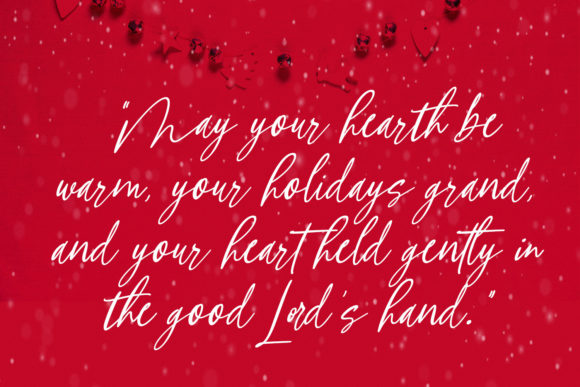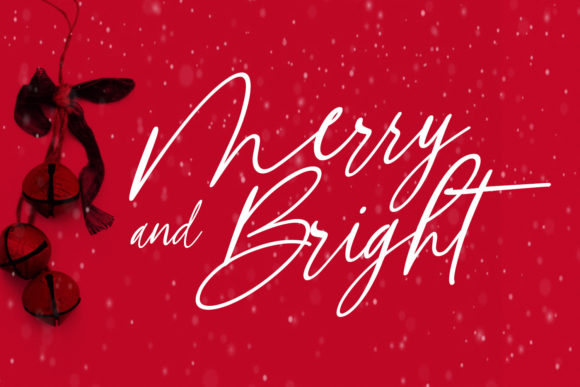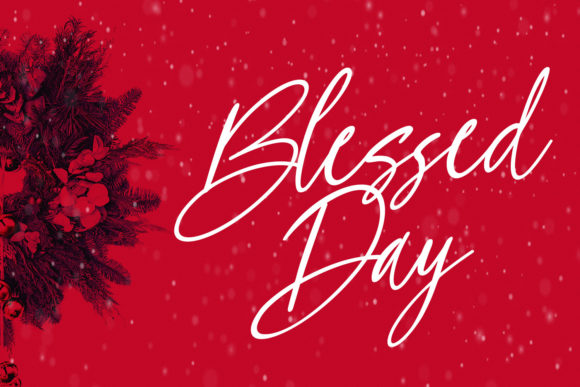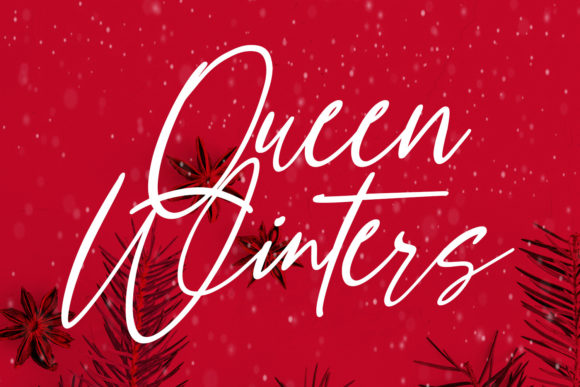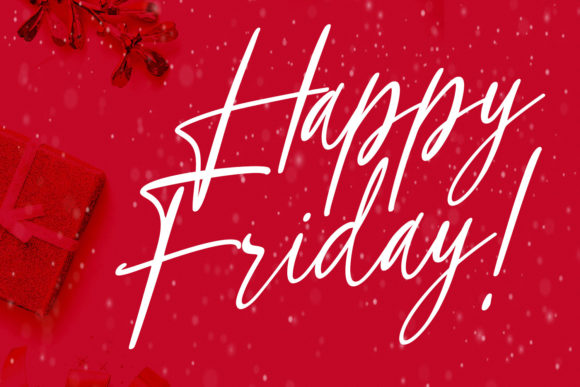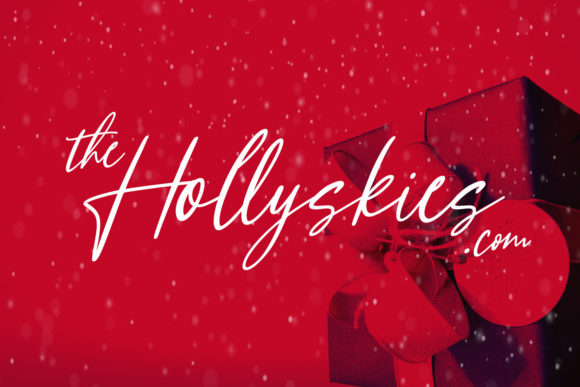
Introducing Another Christmas Script Font: A Festive Addition to Your Design Collection
Are you tired of using the same old fonts for your holiday designs? Look no further! Another Christmas script font is here to bring a touch of festive flair to your creations. This annual Christmas script font boasts a unique slanted style, clean mono-line stroke, fun character, and a dash of ligatures, making it perfect for a variety of design projects.
What Makes Another Christmas Script Font Special?
Another Christmas script font is designed to add a playful and cheerful vibe to your designs. Its slanted style gives it a dynamic and energetic feel, while the clean mono-line stroke ensures that your text remains clear and easy to read. The fun character and ligatures add a whimsical touch, making it ideal for creating eye-catching designs that capture the spirit of the holiday season.
Uses for Another Christmas Script Font
This versatile font can be used for a wide range of design projects, including:
- Logo Design: Create a memorable and festive logo for your business or brand with Another Christmas script font.
- Social Media: Add a touch of holiday cheer to your social media posts and stories with this fun and playful font.
- Movie Titles: Use Another Christmas script font to create eye-catching movie titles that set the tone for a festive and fun film.
- Books Titles: Add a touch of elegance and sophistication to your book titles with this beautiful script font.
- Short Text: Use Another Christmas script font for short text, such as captions, headings, and titles.
- Long Text: This font is also suitable for longer text, making it perfect for creating festive blog posts, articles, and more.
Tips for Using Another Christmas Script Font
To get the most out of Another Christmas script font, here are a few tips to keep in mind:
- Experiment with Colors: Try pairing Another Christmas script font with a range of festive colors, such as red, green, and gold, to create a bold and eye-catching design.
- Play with Ligatures: Take advantage of the ligatures in Another Christmas script font to add a touch of whimsy and personality to your design.
- Mix and Match: Combine Another Christmas script font with other fonts to create a unique and visually appealing design.
Why Designers and Crafters Love Another Christmas Script Font
Another Christmas script font is a favorite among designers and crafters for several reasons:
- Unique and Festive: This font offers a fresh and festive take on traditional Christmas fonts, making it perfect for designers and crafters looking to create something new and exciting.
- High-Quality: This font is designed with high-quality and clarity in mind, ensuring that your designs look professional and polished.
Another Christmas script font is a versatile and festive addition to any design collection. With its unique slanted style, clean mono-line stroke, fun character, and ligatures, this font is perfect for creating a wide range of designs, from logos and social media posts to movie titles and book titles. Whether you’re a designer or crafter, Another Christmas script font is sure to bring a touch of holiday cheer to your creations.